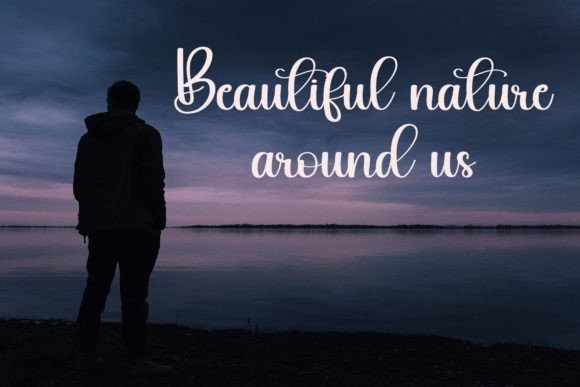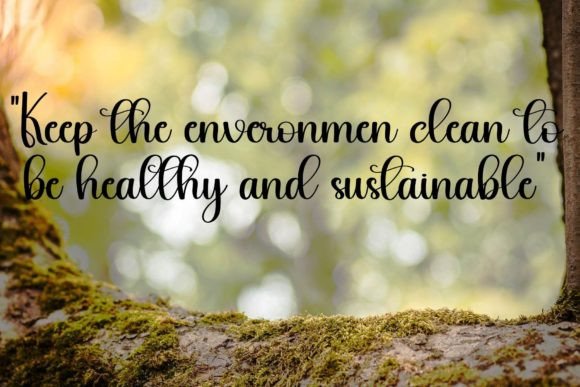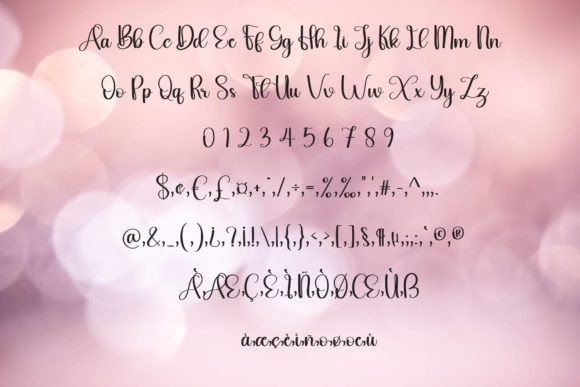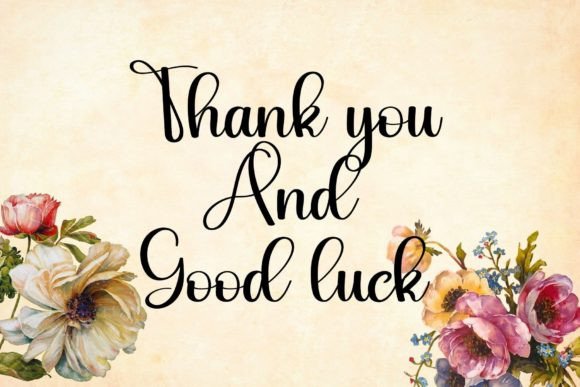
Daily Font
About Daily Font
Daily is a sweet, whimsical, flowing, and thin script font. Featuring characters that dance along the baseline, this font will add a luxury spark to any design project that you wish to create!